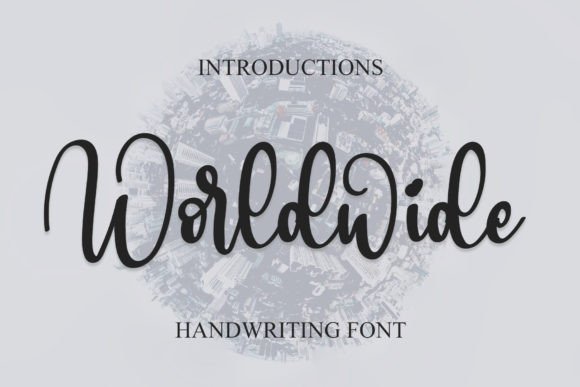
Welcome to the world of Worldwide Font, an enchanting script typeface that captures the allure of a timeless handwritten style. Discover the beauty of this delicate and elegant font, crafted with love and precision by YanStudio. Worldwide is not just a font; it's an artistic masterpiece that dances across your projects, infusing them with an aura of sophistication and charm.
Immerse yourself in the endless possibilities that Worldwide presents. Its flowing curves and distinctive characters bring a touch of elegance and personality to your designs. Whether you're a creative professional, a designer seeking inspiration, or a teacher striving to make a lasting impression, Worldwide is the perfect font to elevate your work and captivate your audience.
With Worldwide, you have the freedom to create designs that speak volumes. Its PUA encoding grants you effortless access to a world of glyphs and swashes, allowing you to add intricate details and flourishes that transform your projects into works of art. From logos and branding to invitations and stationery, Worldwide seamlessly adapts, adding a touch of class and sophistication to every creation.
Take your teaching materials to the next level with Worldwide. Its carefully crafted characters ensure that your resumes, presentations, and lesson plans stand out from the crowd. Create visually appealing educational materials that engage and inspire your students, leaving a lasting impression that ignites their passion for learning.
With Worldwide, your words take flight, carrying the weight of your ideas and emotions with grace and elegance. Its timeless beauty transcends trends, making it the perfect choice for projects that demand a touch of enduring charm. Embrace the endless possibilities of Worldwide Font and unlock a world of creativity that knows no bounds.